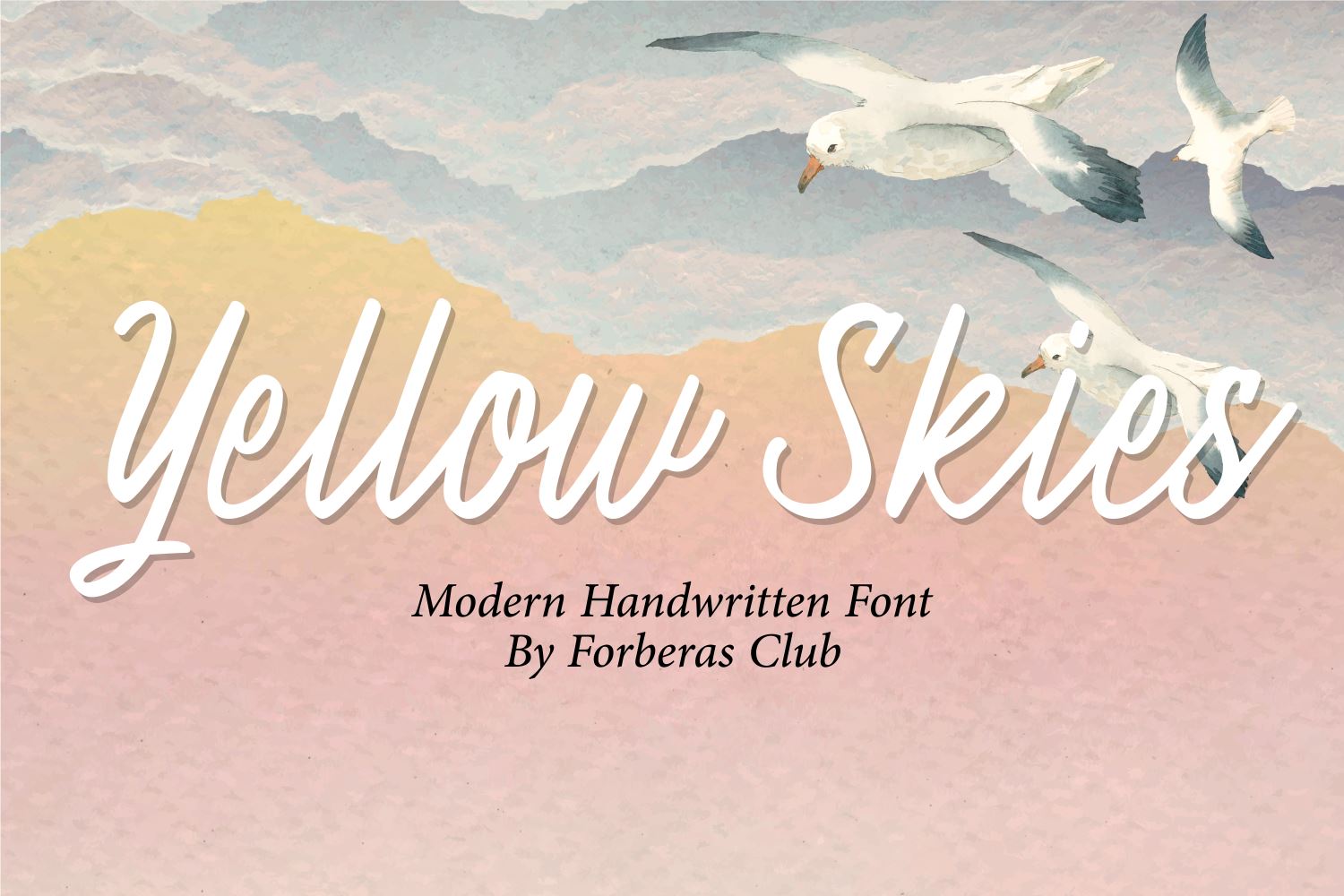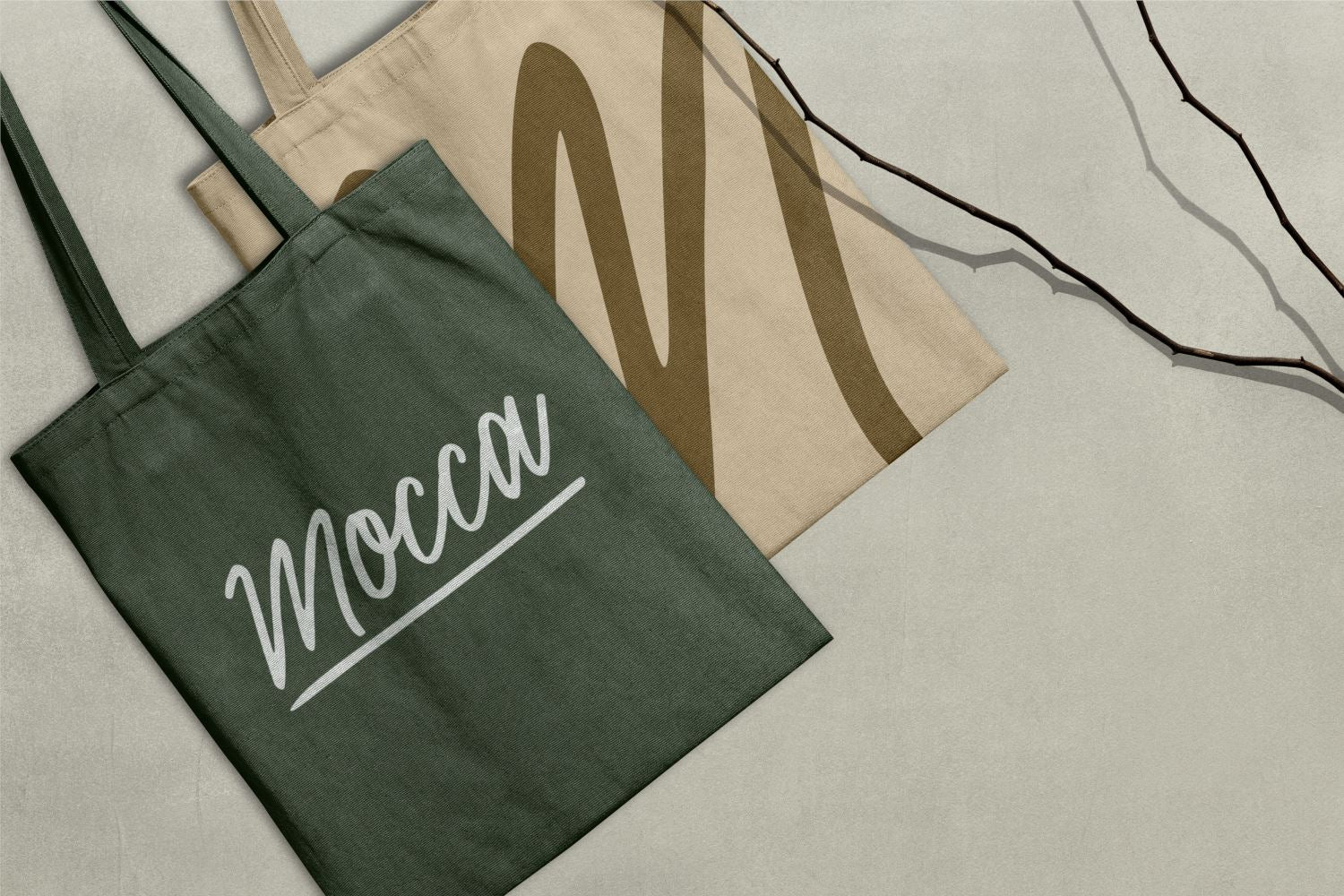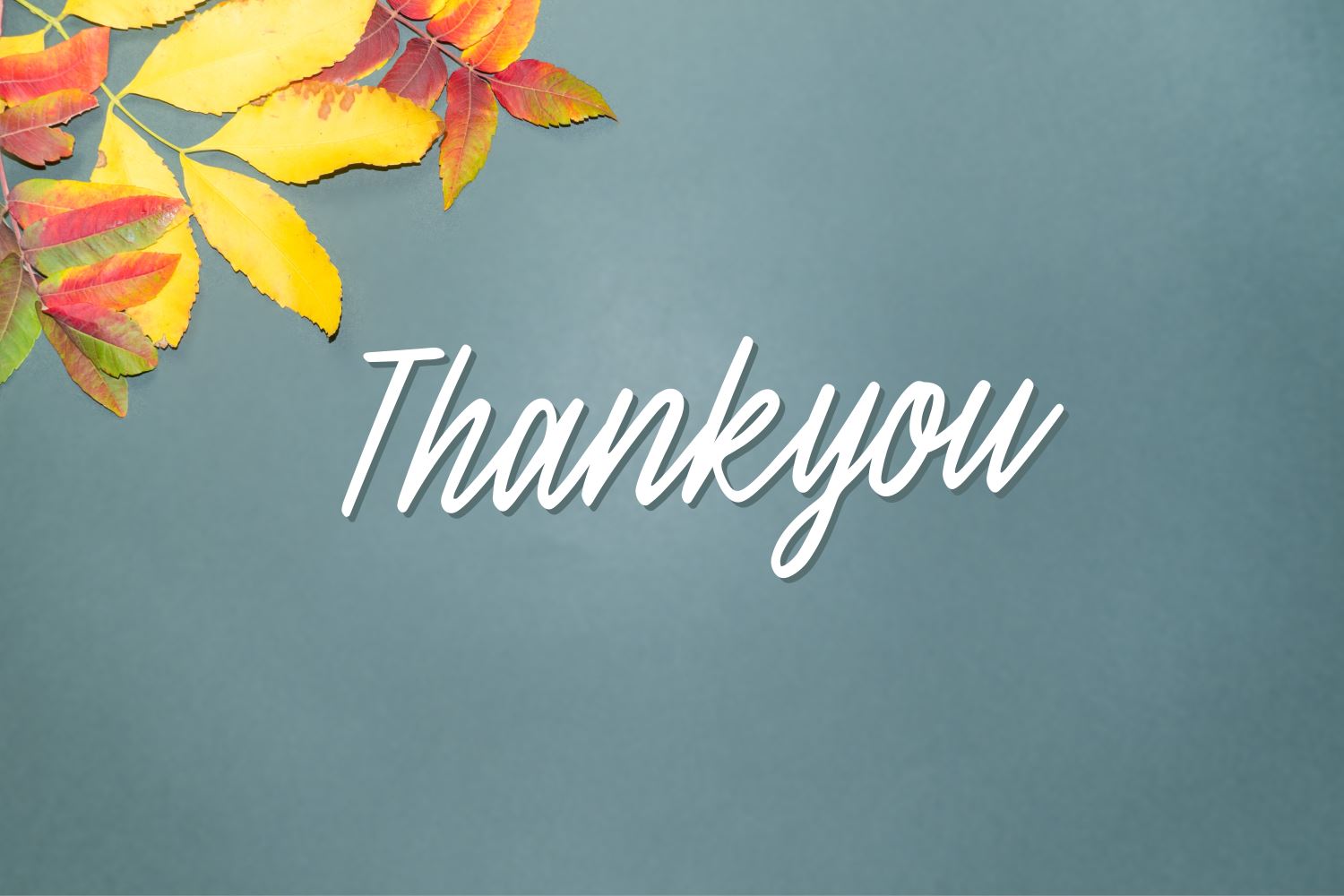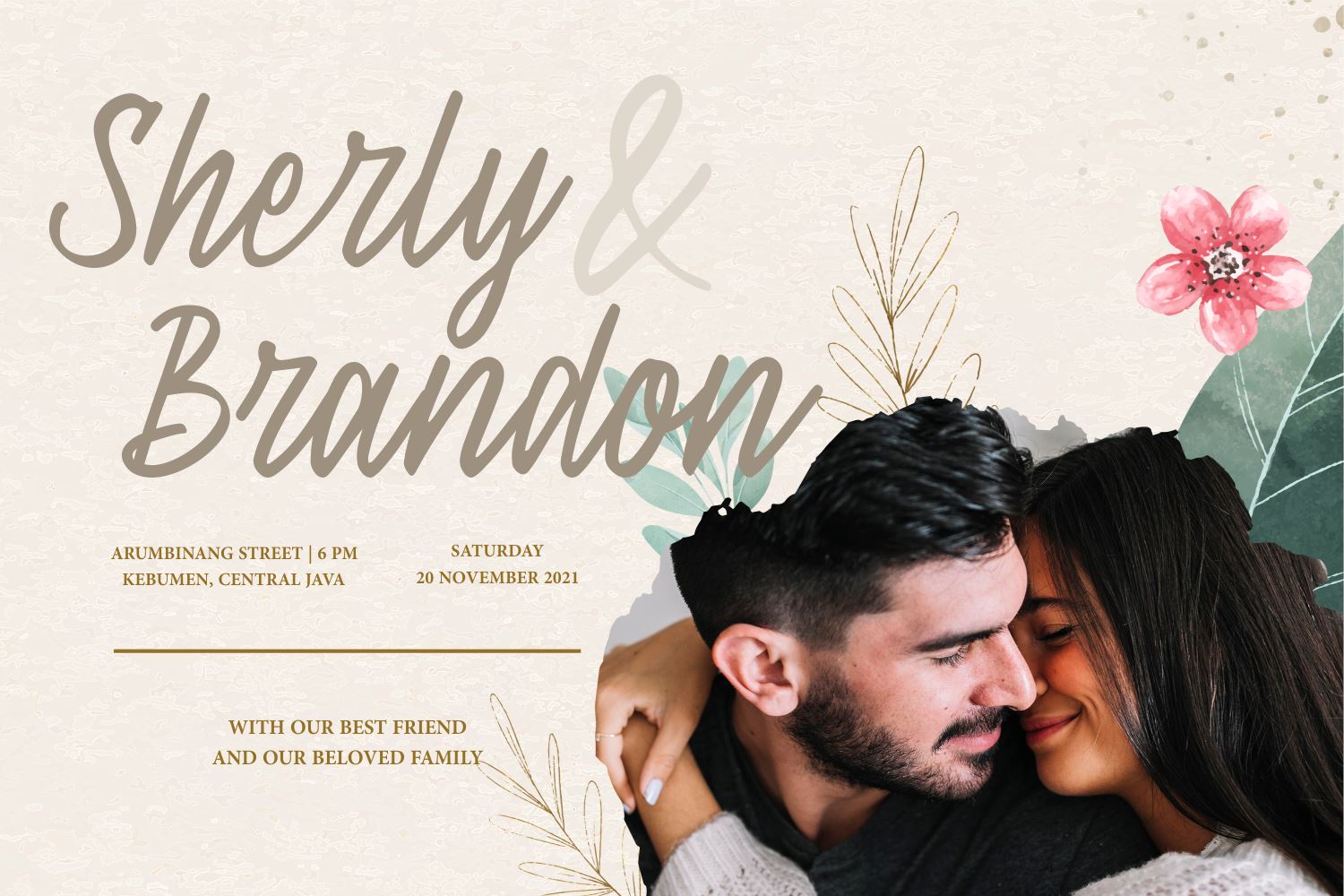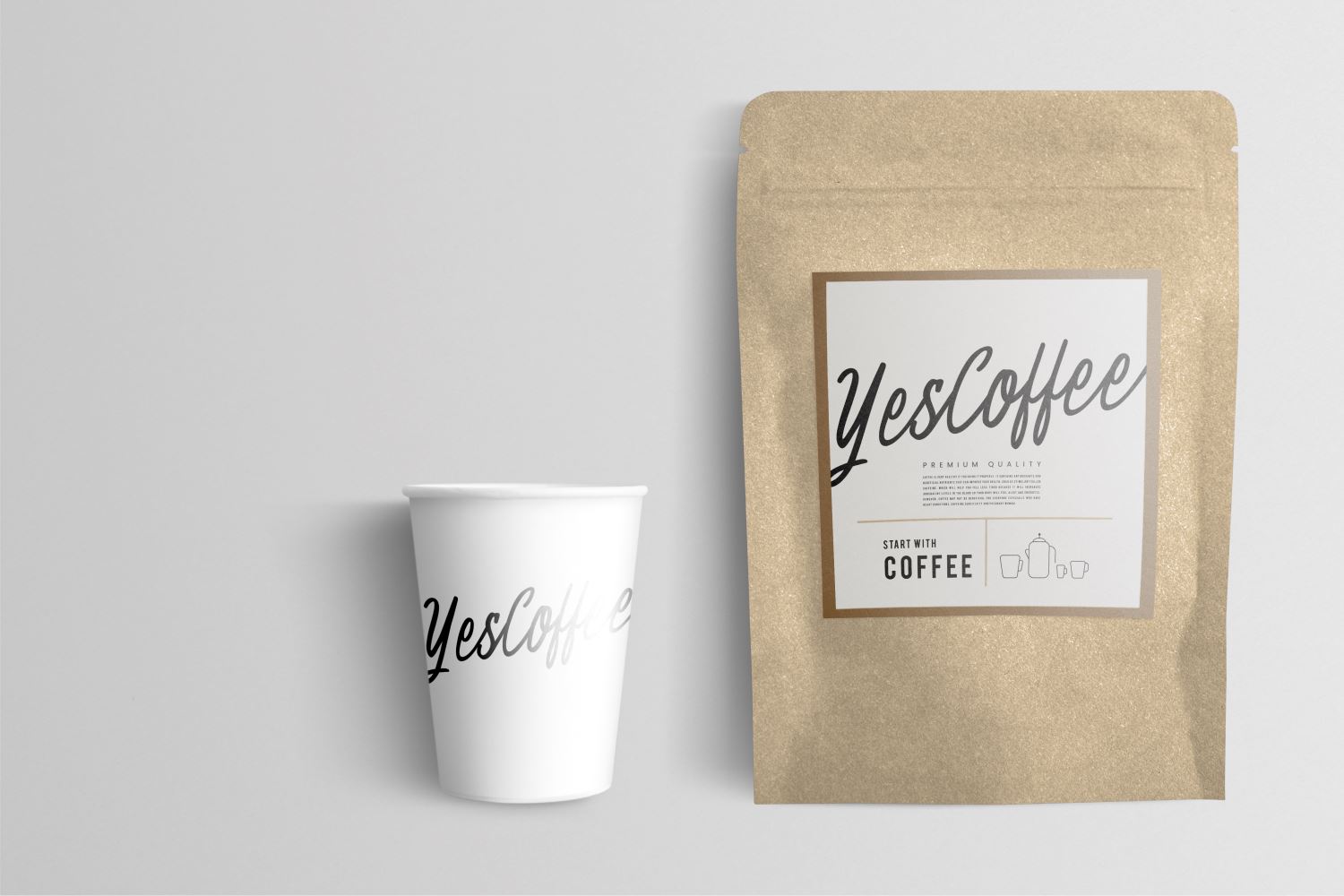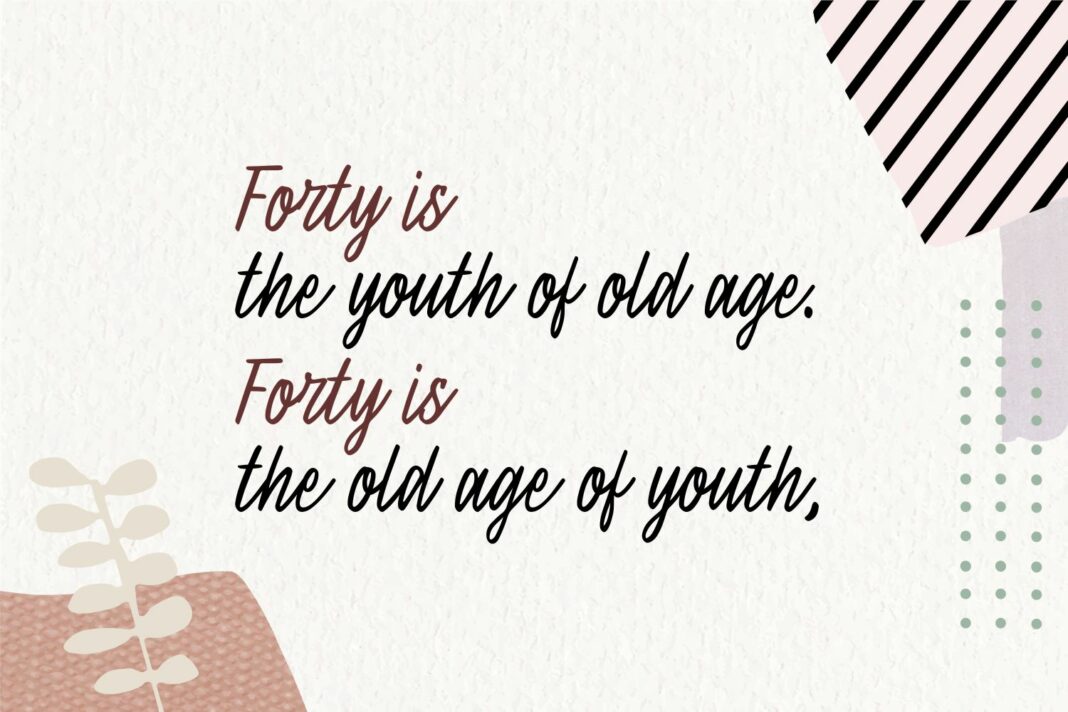
Yellow Skies
About Yellow Skies
Introducing Yellow Skies Font by Forberas Club Yellow Skies is a Modern Handwritten Font. Yellow Skies is perfect for book cover, product packaging, branding project, megazine, social media, kisd book fonts, or just used to express words above the background. This font includes TTF and OTF, This font also multilingual support.